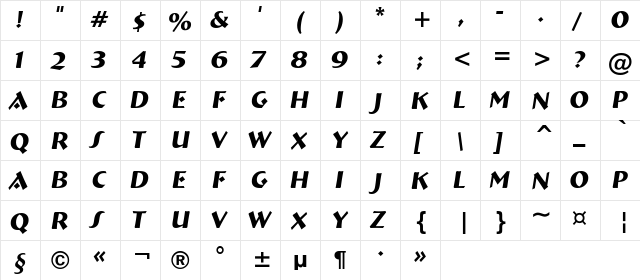
a_Bremen Italic
Design Context for a_Bremen Typeface
a_Bremen offers clean, dependable letterforms without strong stylistic allegiance, making it a practical choice for designers who need flexibility. The dynamic lean of this cut emphasises speed and emphasis in any layout.
Pro Tip: Use a_Bremen for emphasis, pull quotes, and subheadings where its slanted energy can add rhythm to the layout.